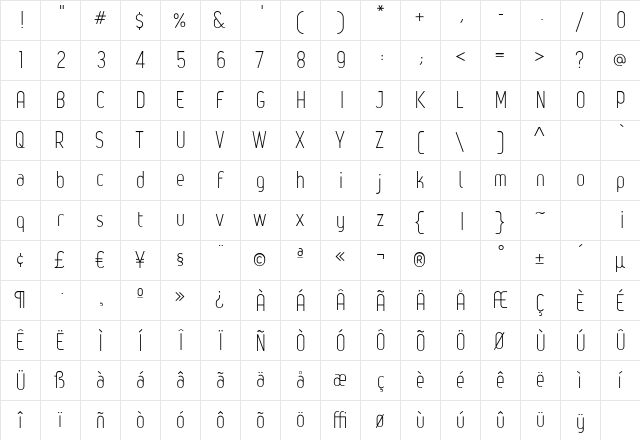
LegerLight Regular
Design Context for LegerLight Typeface
LegerLight offers clean, dependable letterforms without strong stylistic allegiance, making it a practical choice for designers who need flexibility. The delicate stroke weight brings airiness and refinement to layouts.
Pro Tip: Pair LegerLight with a font of contrasting weight or personality to build a more expressive typographic hierarchy.